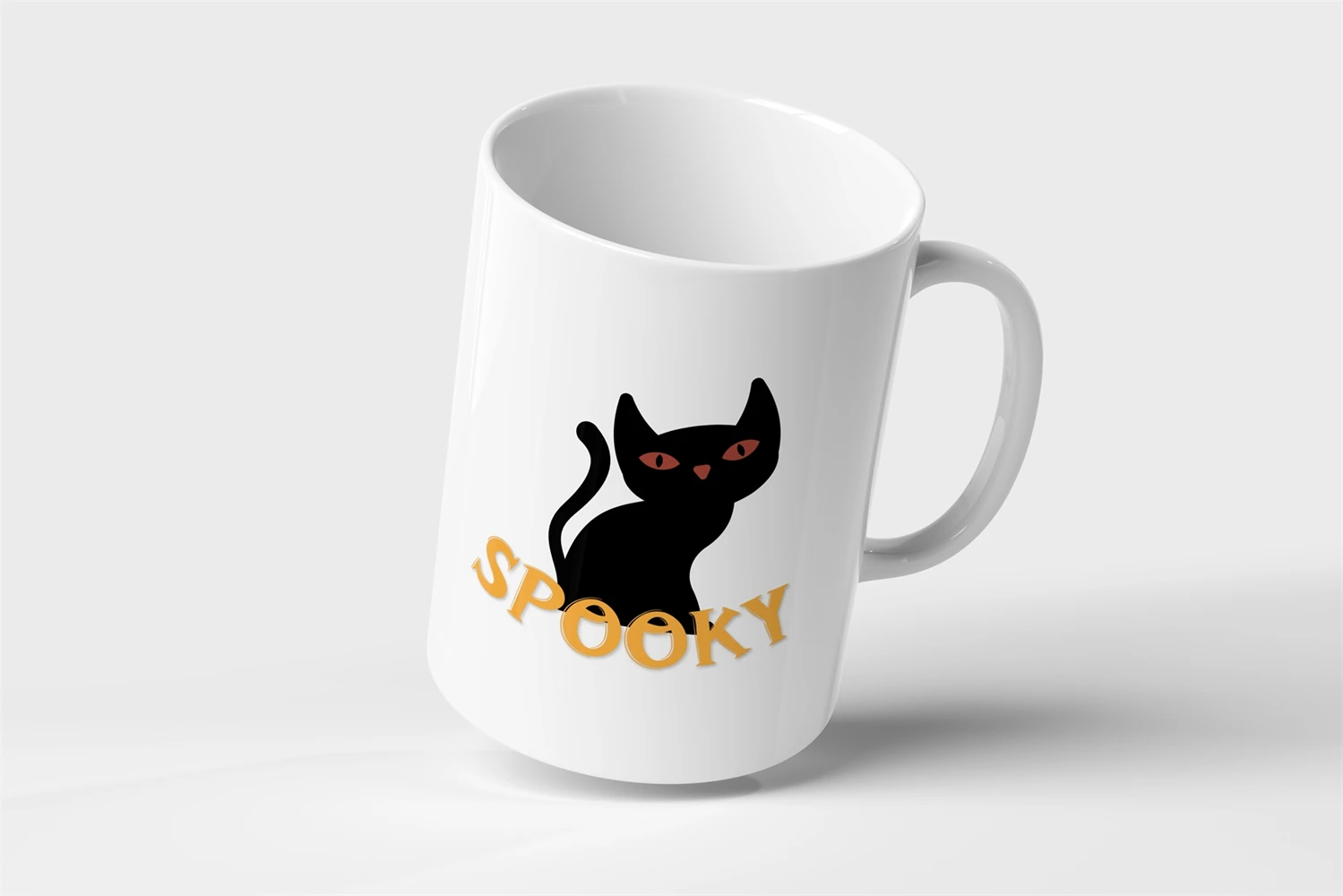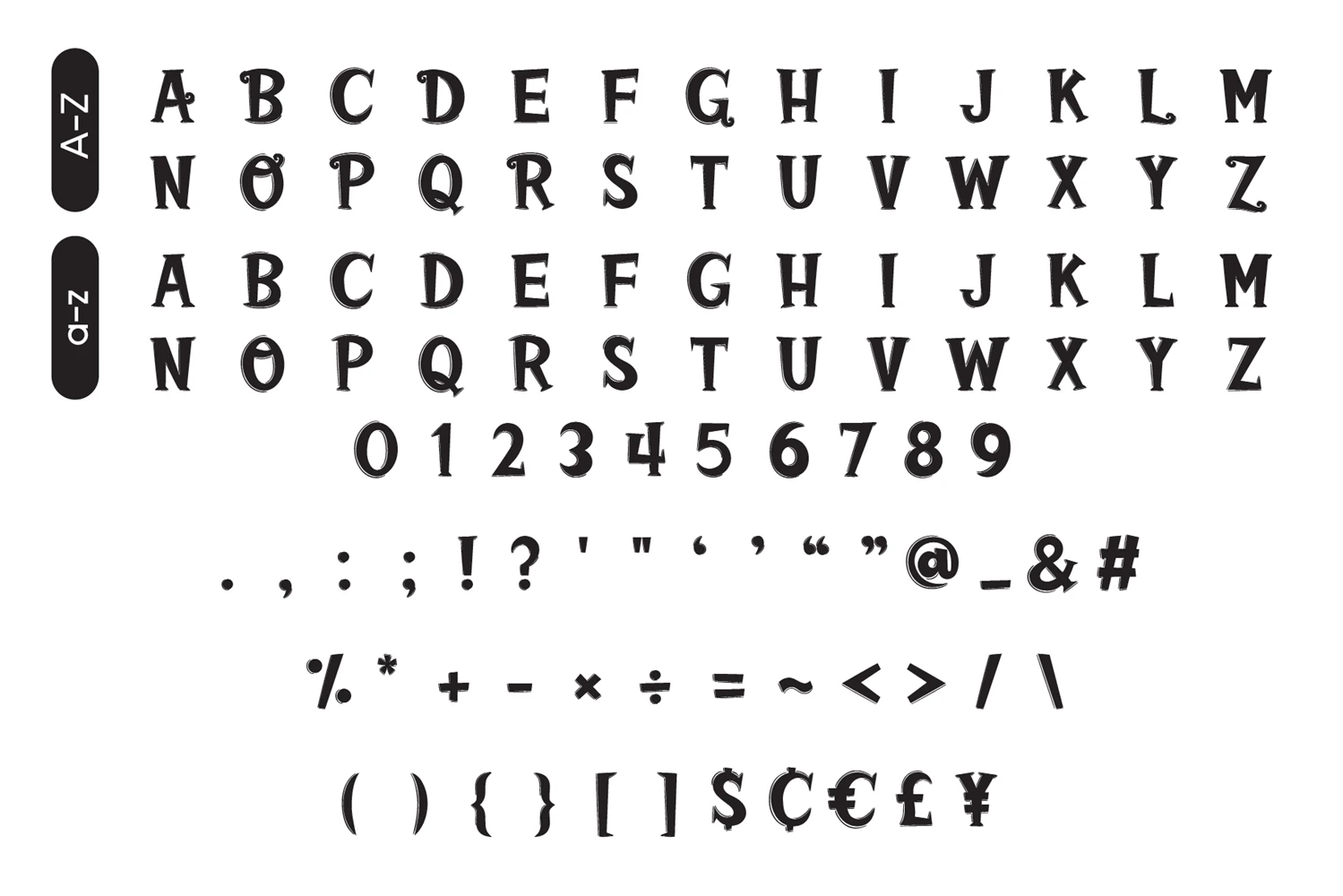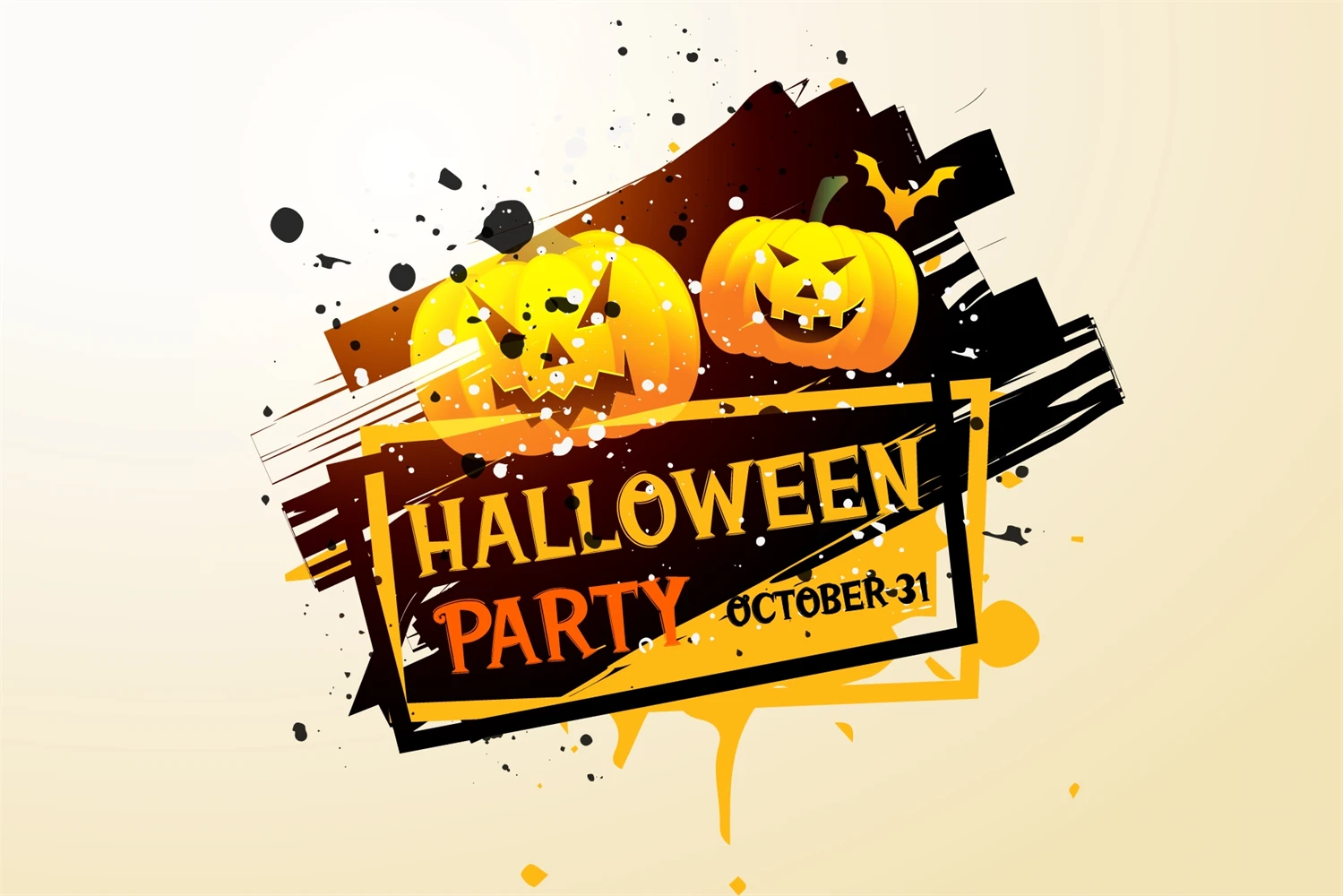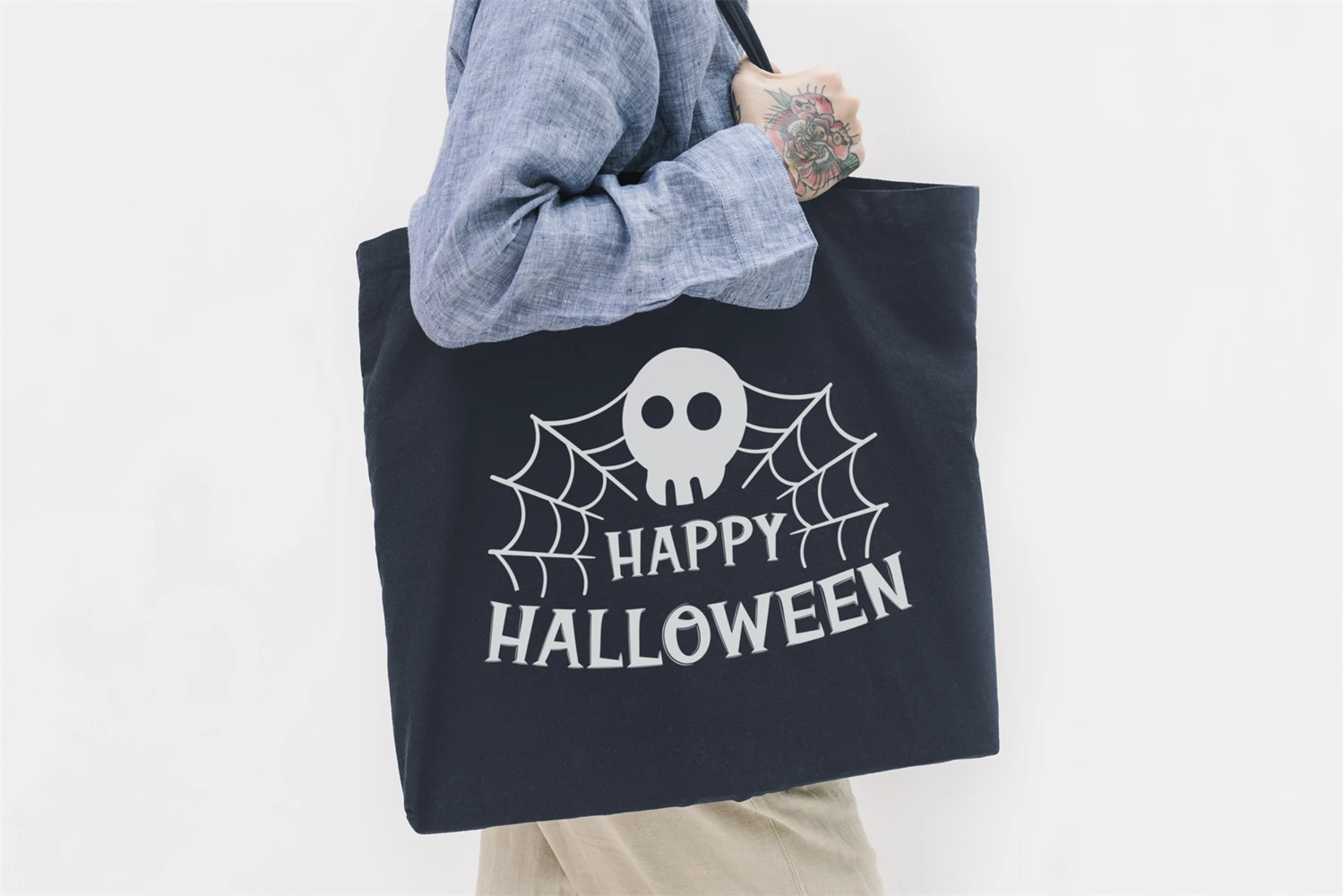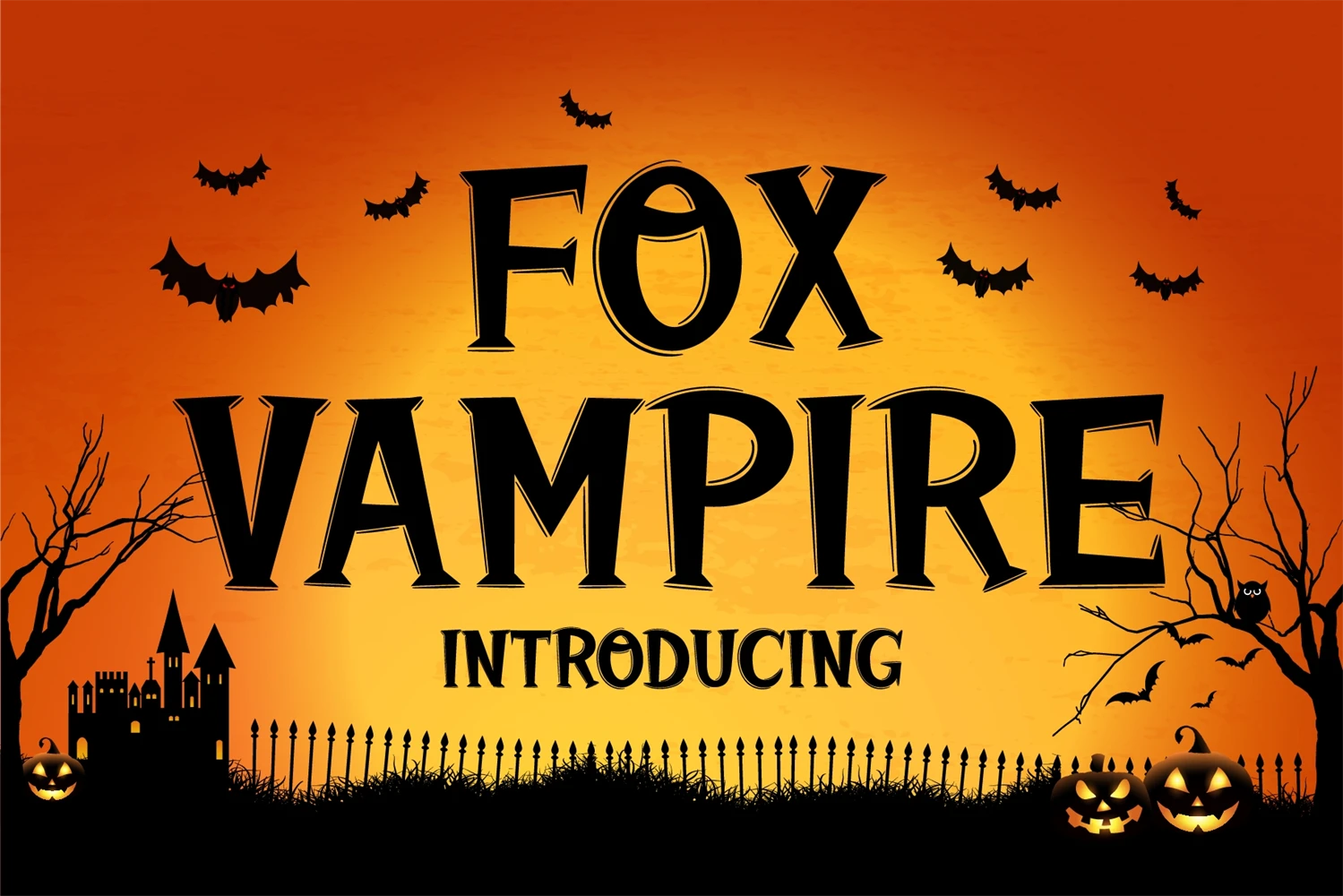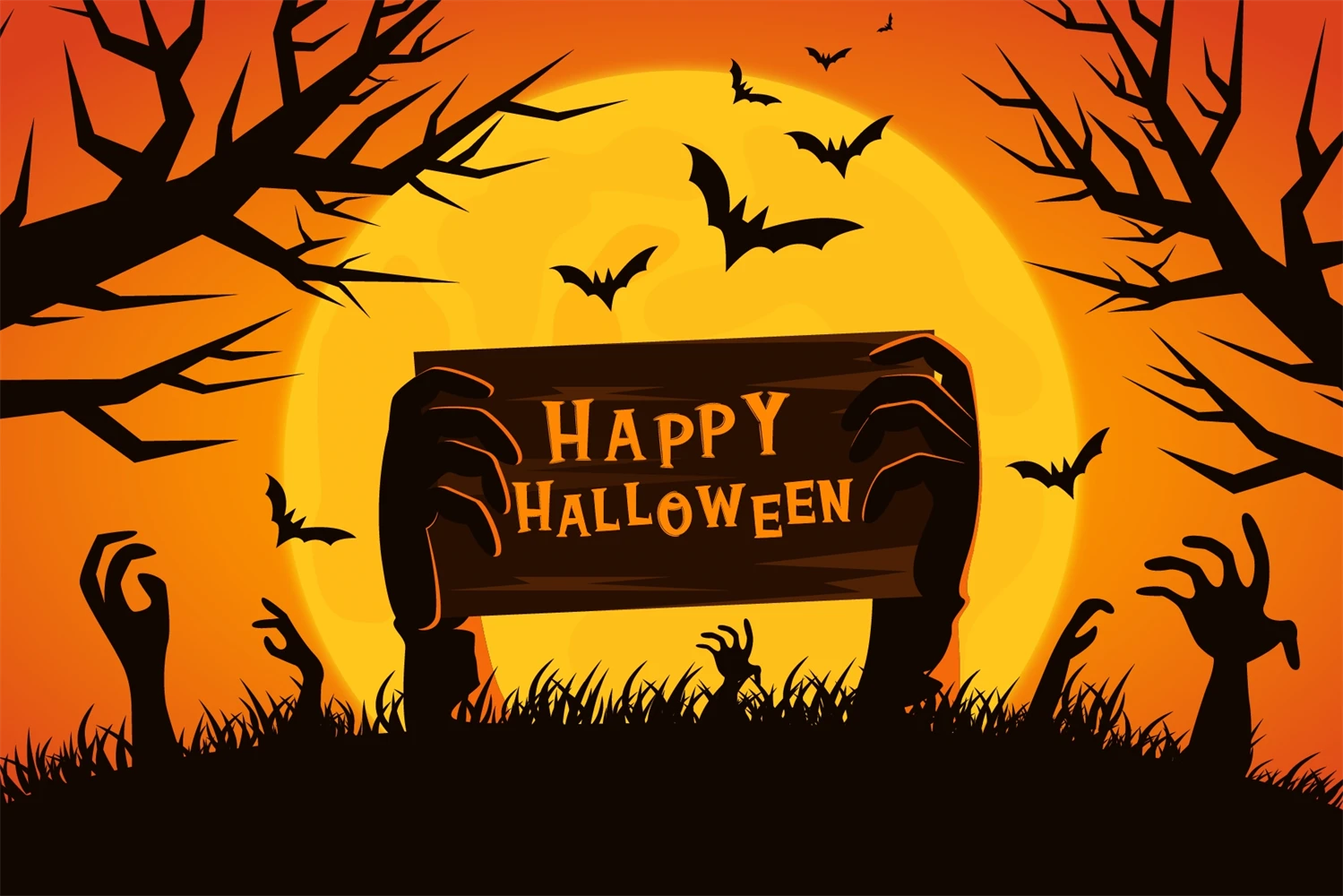
Fox Vampire is a beautiful and fun-style display font. Suitable for a variety of designs such as Halloween, and childrens themes. It is perfect for logos, t-shirts, papers, print designs, website headers, photo frames, flyers, music covers, posters, image sliders, and much more.